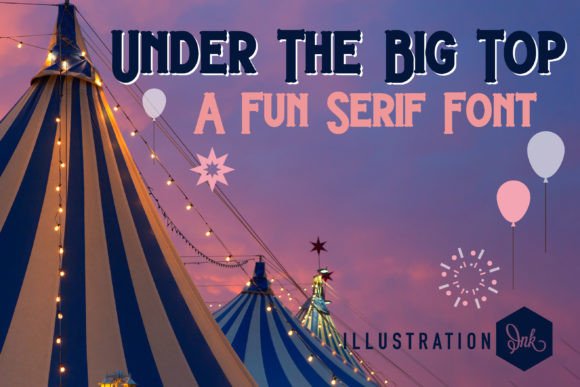
Behold, font enthusiasts and design visionaries! Prepare to be captivated by Under the Big Top, a display font of unrivaled charm and charisma. This isn't just a font; it's an artistic masterpiece, meticulously crafted by the talented team at Illustration Ink.
Under the Big Top transcends the ordinary, captivating your audience with its unique and intricate shapes. Each letter is a work of art, adorned with elaborate details and bold lines that dance across the page. Experience the thrill of creating headlines that ignite imaginations, logos that leave an indelible mark, and design elements that command attention.
With Under the Big Top, your designs will take center stage, captivating your audience with a visual spectacle that speaks volumes. Its vintage-inspired aesthetic evokes a sense of nostalgia, transporting you to an era of wonder and charm. Unleash your creativity and embrace the limitless possibilities that await you.
This font is more than just a tool; it's a gateway to a world of visual enchantment. Whether you're a seasoned designer or just starting your creative journey, Under the Big Top will elevate your projects to new heights of artistry. Step into the spotlight and let your designs shine under the brilliance of this extraordinary font.
Don't settle for mediocre fonts that blend into the background. Dare to be different. Embrace the allure of Under the Big Top and watch as your designs transform into captivating works of art. Let your imagination soar and create designs that leave a lasting impression.